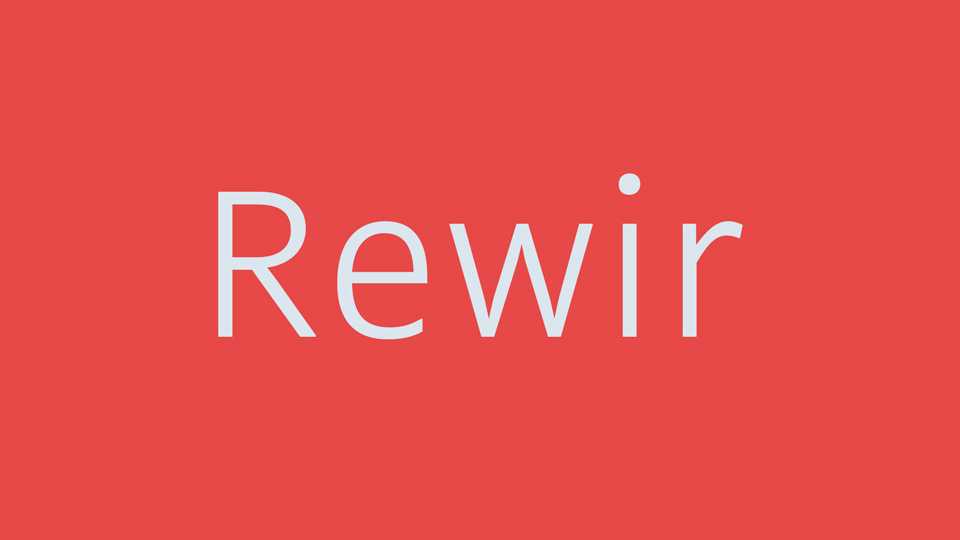
Download Rewir font, a way-finding typeface, inspired by a small sign found on the backyard of a tenement house in Warsaw. Rewir project is a proposal for corporate font to be used on plates and signage on official city and state buildings.
Designer: Robert Jarzec